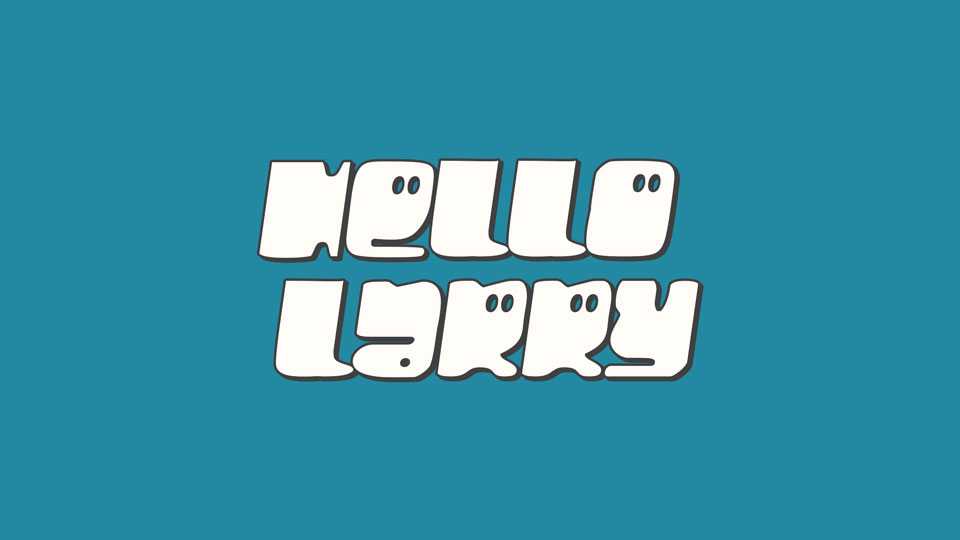
Donwload Hello Larry font, a playful and funky hand-crafted cartoon typeface kicks common sense to the curb and embraces pure fun.
Designer: Typodermic Fonts